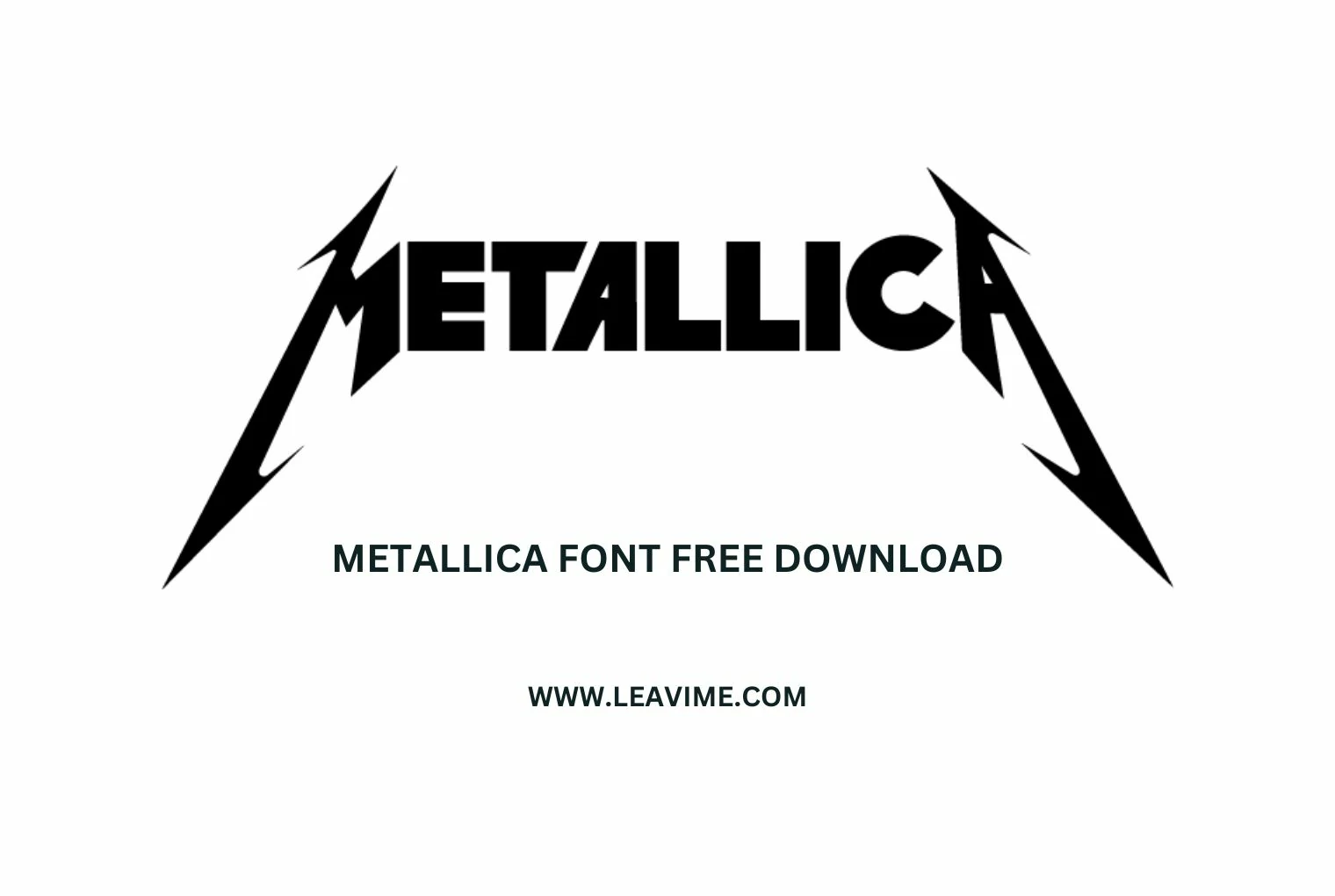
Metallica Font takes inspiration from the iconic logo of the legendary American heavy metal band, Metallica. Known for its sharp, electrifying design, this display font captures the aggressive energy and powerful presence of the band’s visual identity. It’s perfect for anyone seeking a bold and edgy look in posters, album covers, or any rock-themed design projects.
The band Metallica, formed in Los Angeles in 1981 by James Hetfield and Lars Ulrich, became a cultural icon not only for their groundbreaking music but also for their distinctive branding. The fonts Metallica uses are instantly recognizable, featuring sharp angles and dramatic strokes that reflect the band’s raw intensity and high-speed sound. This font style pays homage to their heavy metal legacy.
Whether you’re working on a music project, a band poster, or a merchandise design, the Metallica Font adds instant attitude and boldness. It’s not just a font — it’s a statement. Let your designs channel the same fierce spirit that made Metallica one of the most influential heavy metal bands in history.